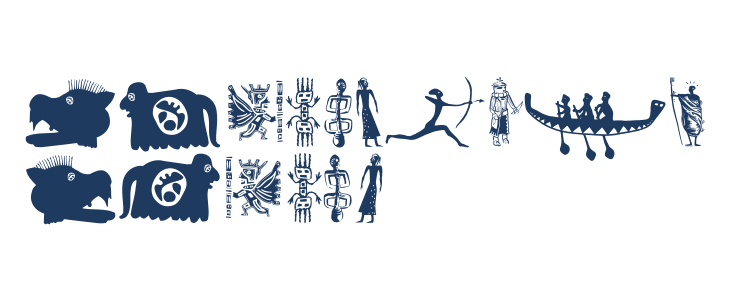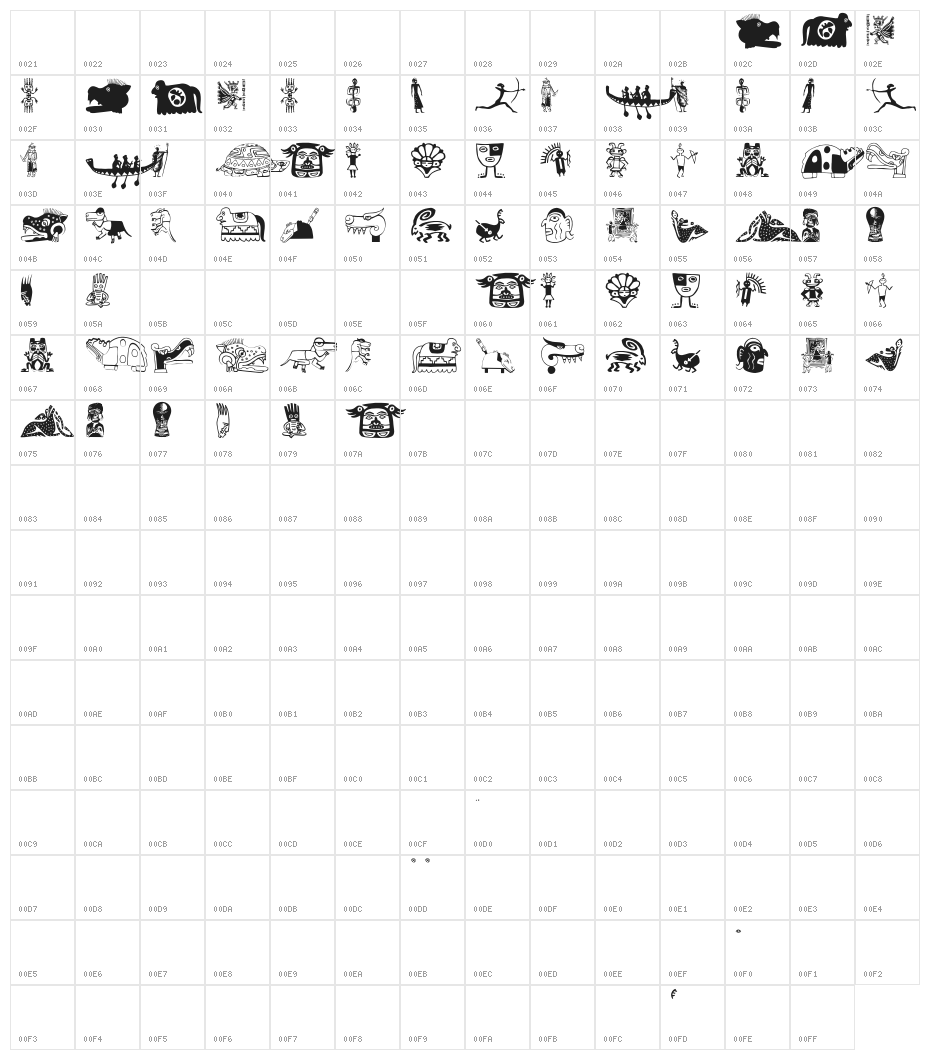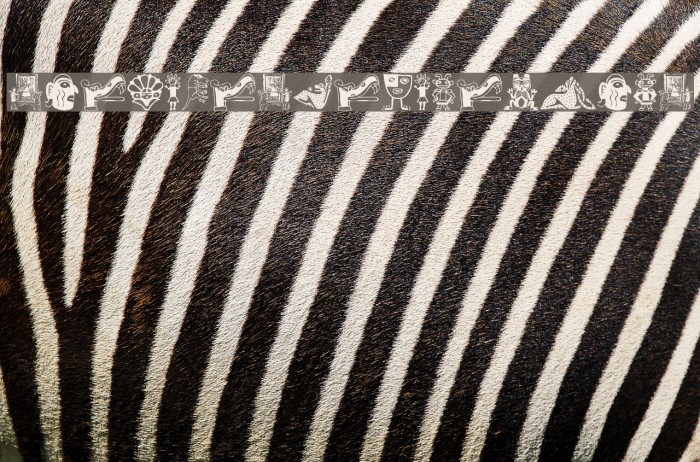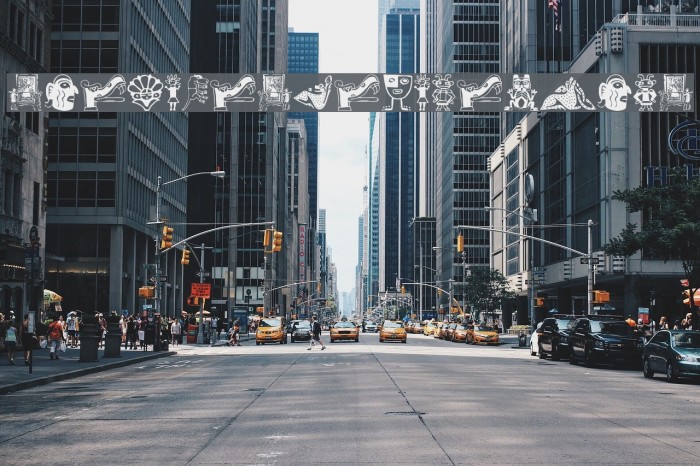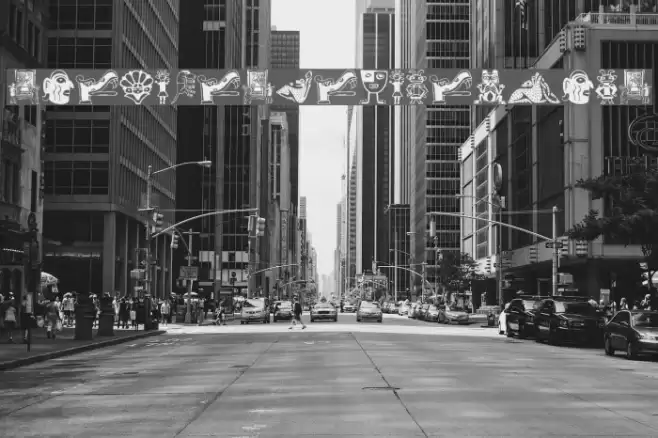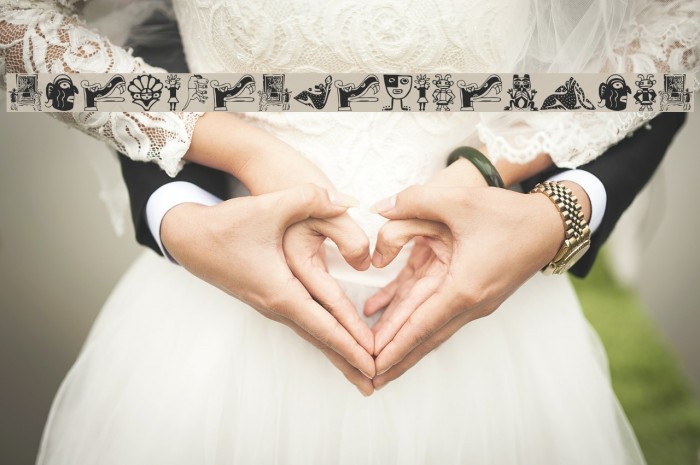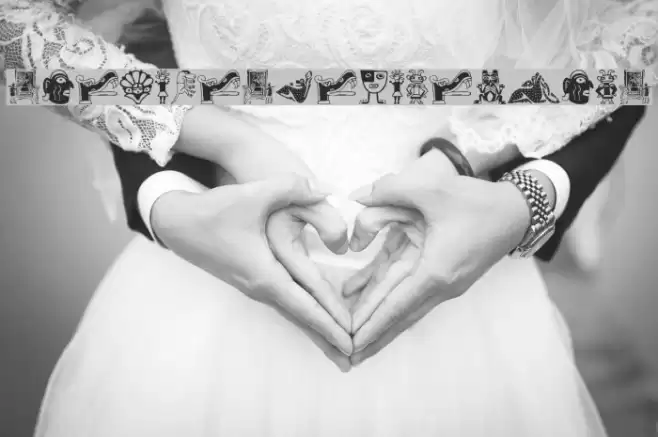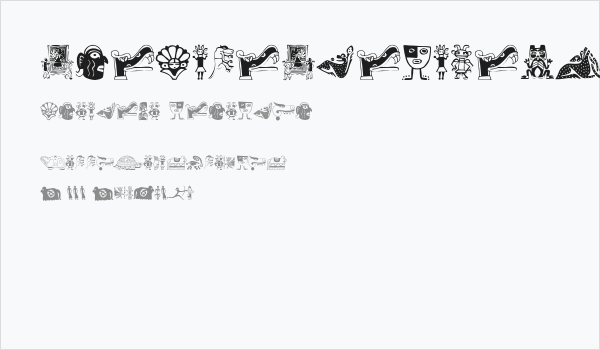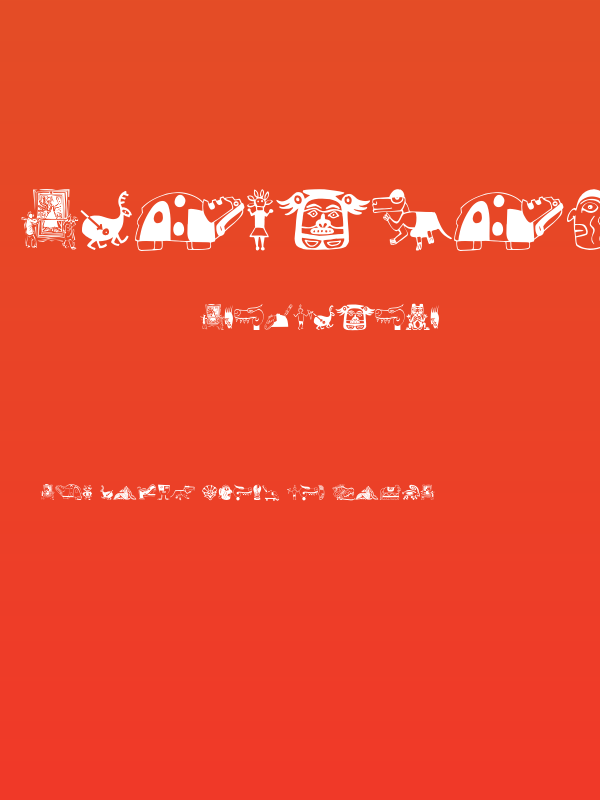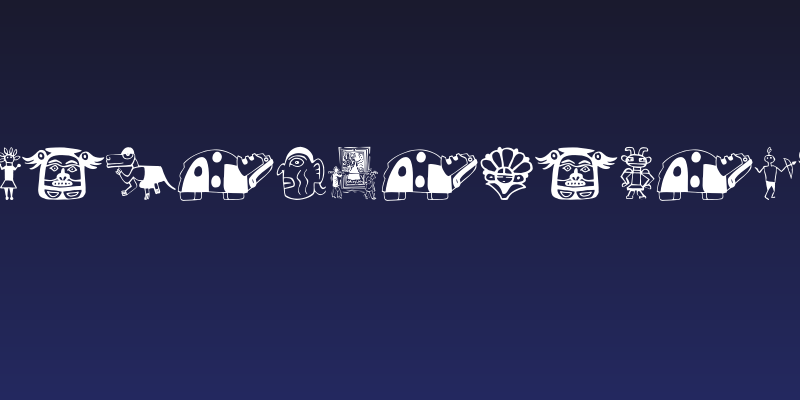
TribalisticaFigures Font
TribalisticaFigures Description
This collection features a series of intricate and stylized tribal figures, each with unique and expressive designs. The characters are highly decorative, showcasing a variety of abstract and anthropomorphic forms. The figures include a mix of human-like and animal-like shapes, each with bold outlines and detailed patterns. The style is reminiscent of ancient tribal art, with a modern twist that adds a playful and artistic flair. The characters are diverse in form, ranging from simple outlines to complex, filled designs, each telling its own story through visual symbolism.
| Use Case | Logos, Artistic designs, Cultural projects |
| Proposed Projects | Ideal for use in cultural projects, artistic designs, educational materials, or as decorative elements in graphic design. These figures can enhance projects that require a touch of tribal or ethnic art. |